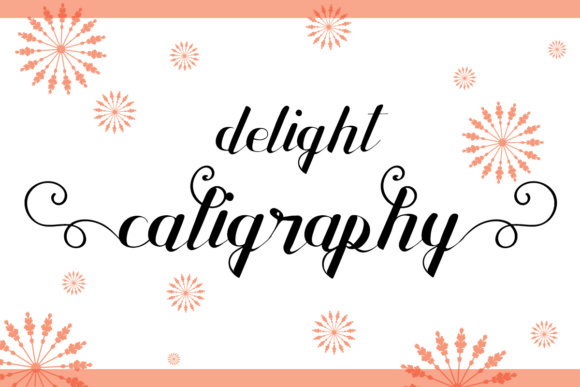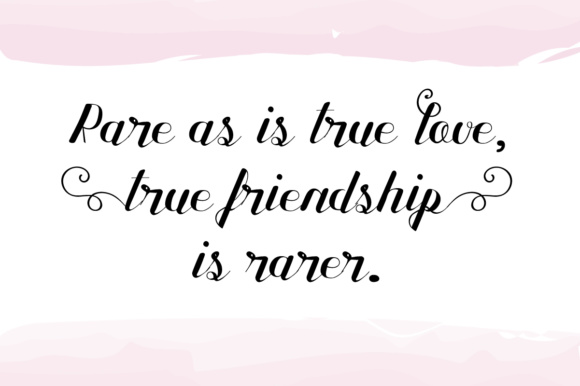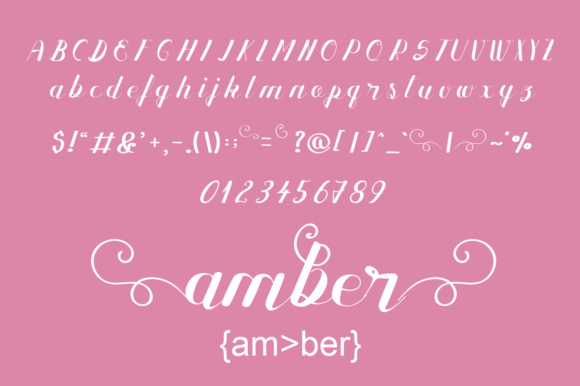
Delight Calligraphy Font
About Delight Calligraphy Font
The Delight Calligraphy is a fun, sweet script font that comes with lovely swashes.
Simply add { } around a word to add the swashes, e.g.: {love}